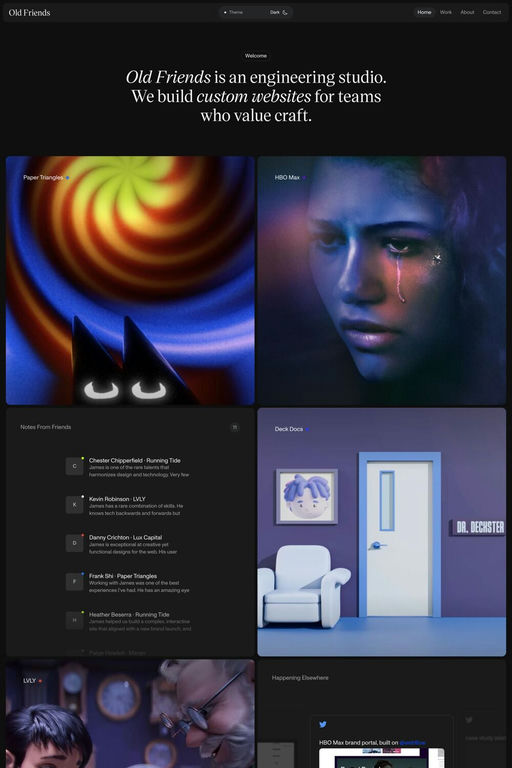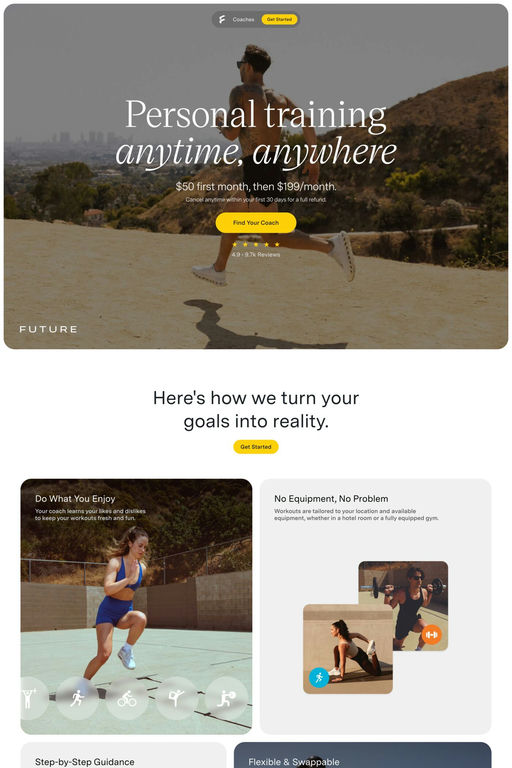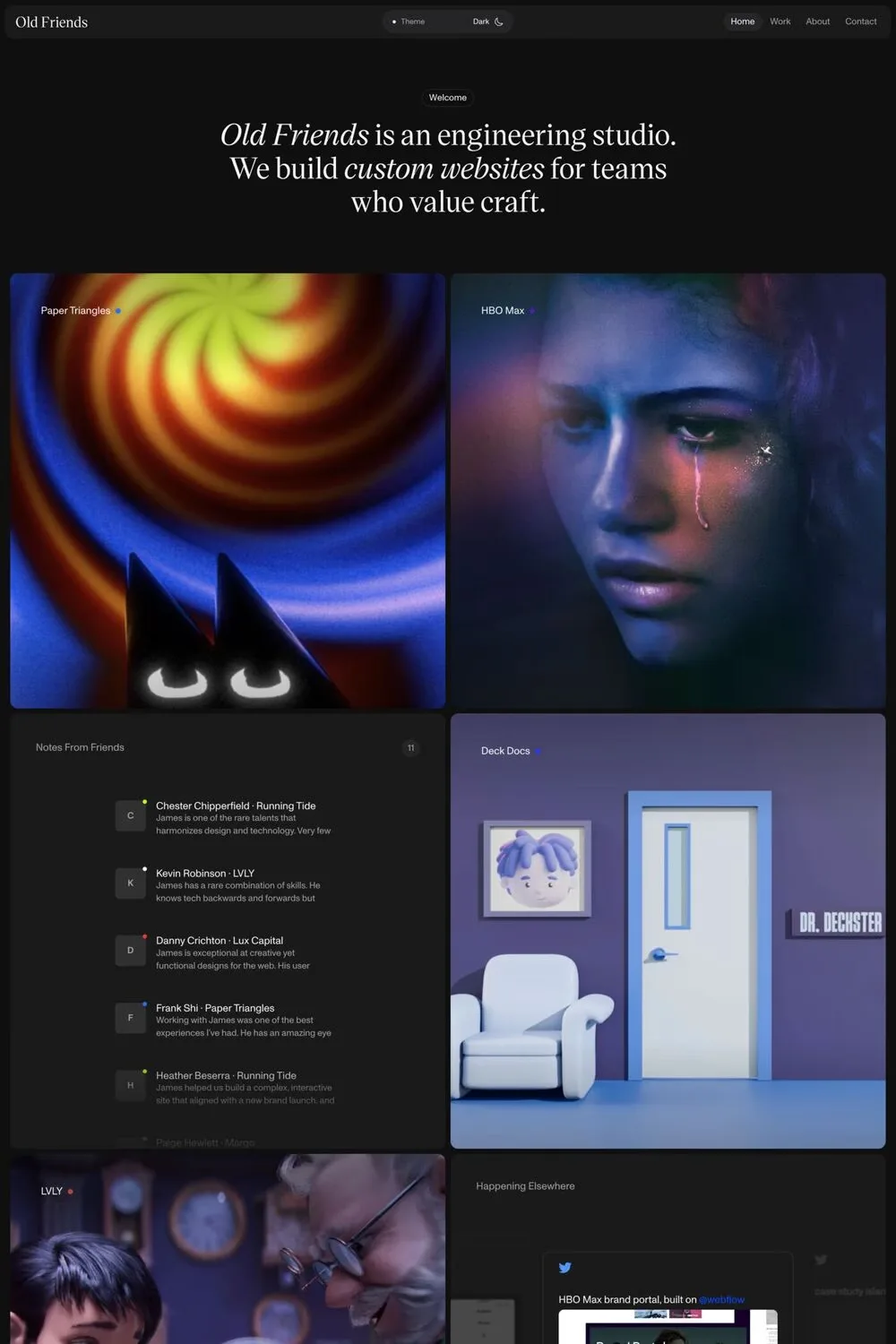
Victor Serif is a serif typeface from KOMETA.
Ranging from an ethereal Hairline to a stately Black, Victor Serif is a true workhorse serif family available for licensing in 8 weights now supporting Latin and Cyrillic. A variable font seamlessly alternating between all weights is included free of charge if you buy the full family.
A1 features 2 websites using Victor Serif, including Future and Old Friends. They lean towards Serif, Clean, and Photography design styles, and they’re most often built with Next.js.